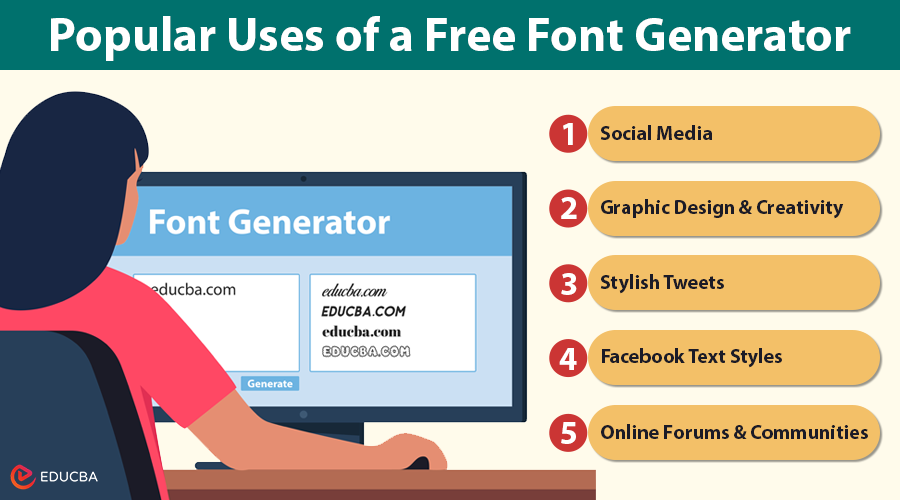
Free Font Generator
The Best Free Font Generator: Stylish, Professional, and Simple
In the fast-paced digital world, first impressions matter, and the way your text looks can be just as important as what it says. Whether you are designing social media posts, branding materials, or personalizing your website, the right font can instantly elevate your content. That is where a Free Font Generator becomes a game-changer. It allows you to turn plain text into stylish, eye-catching typography in seconds.
Ideal for influencers, content creators, students, and small business owners alike, a good Font Generator helps your message stand out without the need for any software installation. After testing several tools, we have found the best free option that is simple, professional, and packed with stylish fonts.
What is a Font Generator?
A Font Generator is an online tool that transforms regular text into unique and visually appealing font styles. It works by converting your input into different Unicode characters that resemble fancy, bold, italic, cursive, or decorative fonts. These styled fonts can be copied and used across social media platforms, websites, and messaging apps.
Free Font Generators are popular among users who want to enhance their Instagram bios, TikTok usernames, or YouTube titles. They require no downloads or installations—just type, copy, and paste. It is a fast and creative way to make your content stand out online.
How to Use a Free Font Generator?
Using a Font Generator is incredibly simple and does not require any technical skills. Just follow these easy steps to transform your plain text into stylish, eye-catching fonts:
1. Go to the website: Visit the reliable Free Font Generator.
2. Type your text: Enter the word, phrase, or sentence you want to style in the input box.
3. Browse font styles: Instantly see your text displayed in a variety of stylish fonts.
4. Copy your favorite: Click your favorite font style to copy it to your clipboard automatically.
5. Paste anywhere: Use it on Instagram, Twitter, TikTok, WhatsApp, or any platform that supports Unicode text.
No sign-up or download is needed—type, copy, and paste using the Free Font Generator!
What is Unicode?
Unicode is a global standard used to represent text characters in a format that computers can understand. Since computers operate using binary code (0s and 1s), each character, whether it is a letter, number, or symbol, is assigned a unique code known as a Unicode value.
Unicode includes over 137,000 characters, covering everything from the standard text you type every day to the unique and decorative symbols used by a Free Font Generator. These characters originate from a wide range of languages, symbols, and scripts, allowing for diverse and creative text transformations.
Before Unicode, different systems used their ways to encode characters, which often caused compatibility issues between devices. Unicode solves this problem, ensuring that the styled fonts and symbols created by our Free Font Generator work seamlessly across most websites, apps, and devices.
Fonts, Symbols, and Emojis
When you use a Free Font Generator and copy-paste the styled text, you might wonder—are you copying a real font or something else? In truth, the stylized text is not a traditional font; it is composed of special Unicode symbols that resemble different font styles.
Our Free Font Generator scans the Unicode Standard to find alternative characters or glyphs that visually match the effect you want—be it bold, cursive, gothic, or decorative. You are not copying a graphic font like Times New Roman—you are copying Unicode characters that look different. That is why these styles are compatible across platforms like Instagram, Twitter, and WhatsApp, even though these platforms do not support custom fonts.
The same principle applies to emojis. Each one has a unique Unicode value, and our tool includes them in your generated text so you can copy and paste them with ease. In short, our Free Font Generator gives you the feel of a custom font using smart Unicode styling—no downloads, no graphic files, and no platform restrictions.
How Do I Get the Generated Font?
Getting your custom-styled text from the Free Font Generator is quick and effortless:
• Type your text
• Choose your style
• Click to copy
• Paste wherever you like
Styled text uses Unicode characters, so most devices and operating systems widely support it. Occasionally, some rare symbols may not display correctly on older platforms, showing as blank squares or boxes. However, in most cases, your unique font will appear just as intended, thanks to the universal compatibility offered by Unicode and our Free Font Generator.